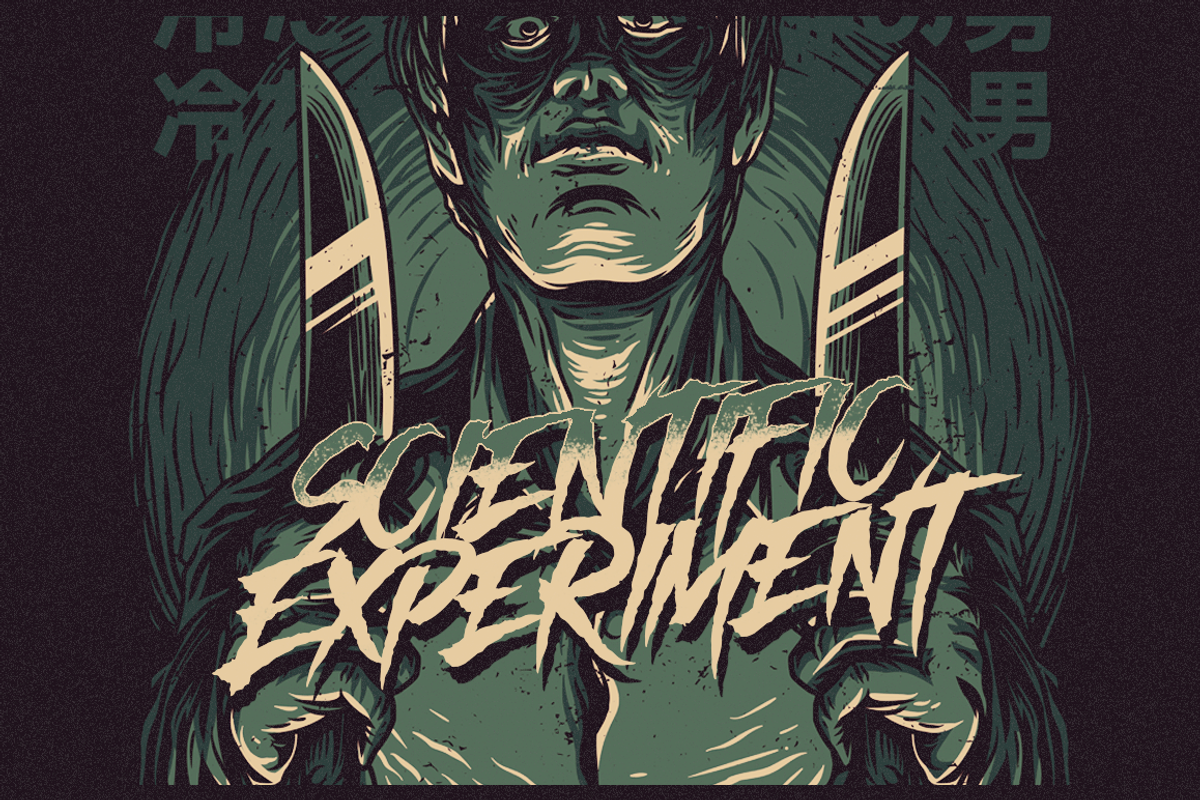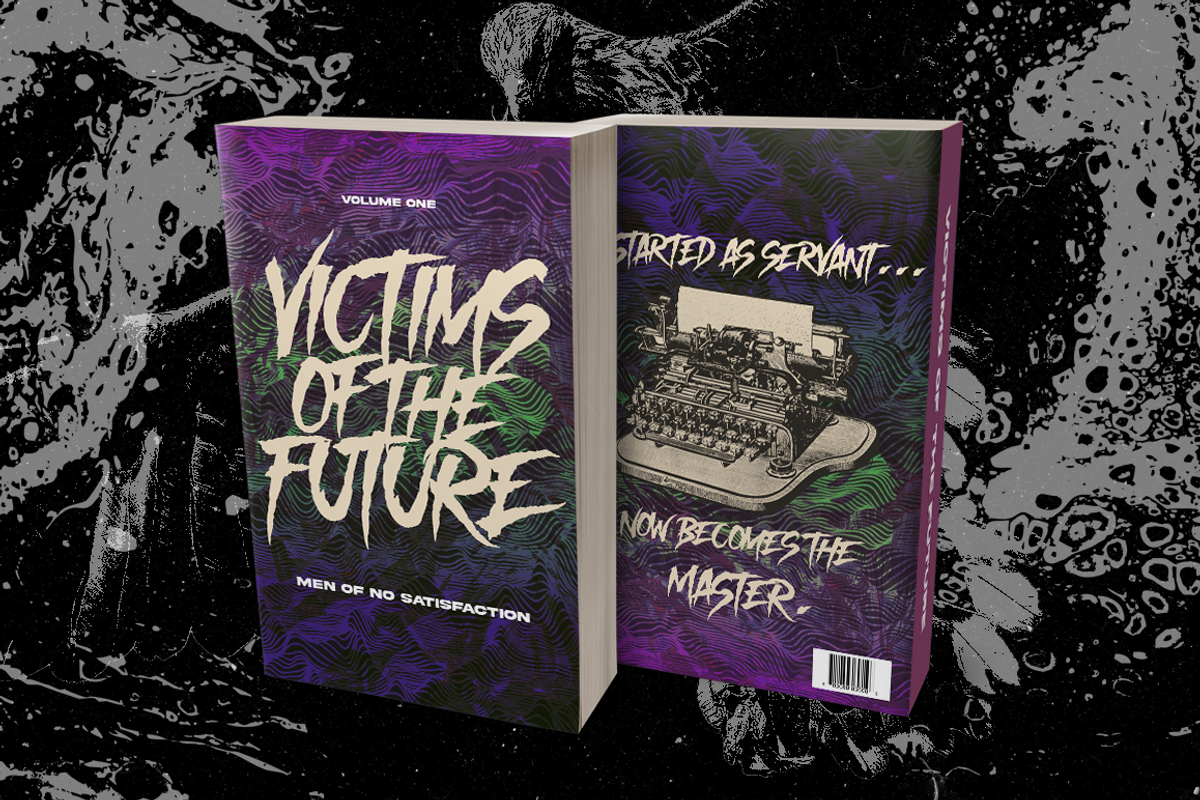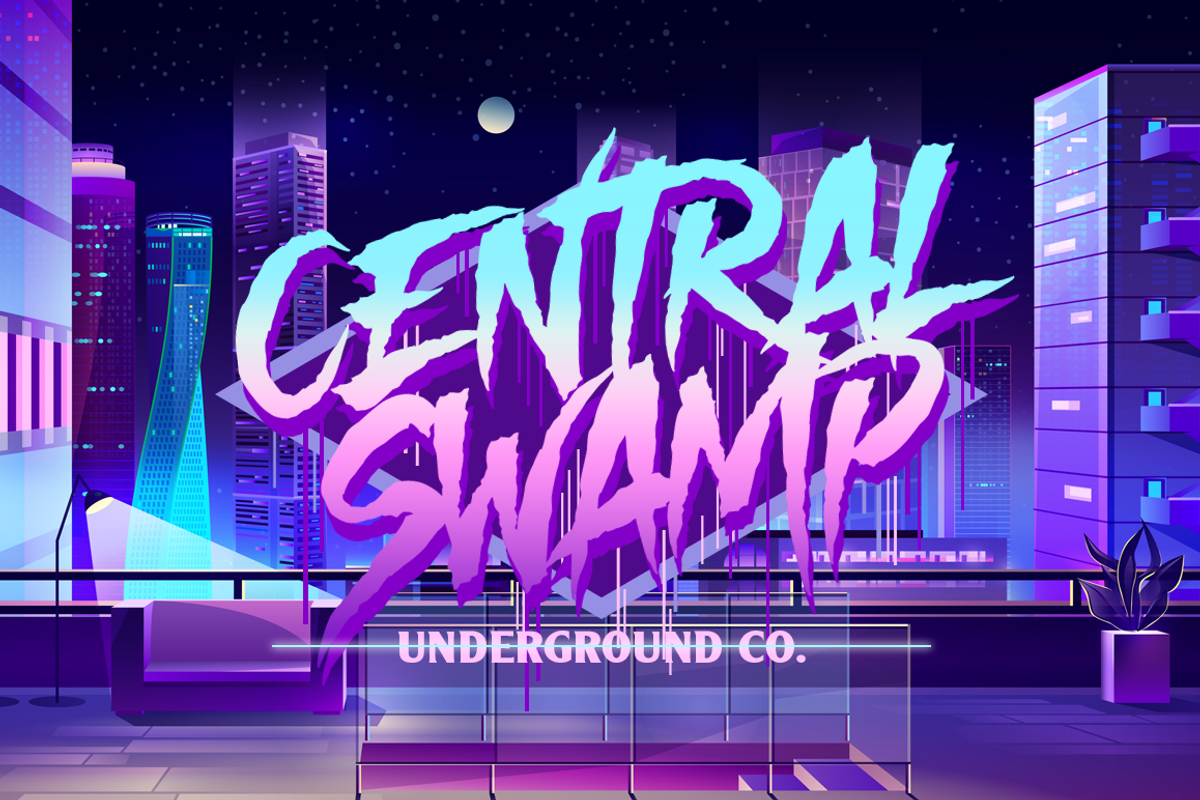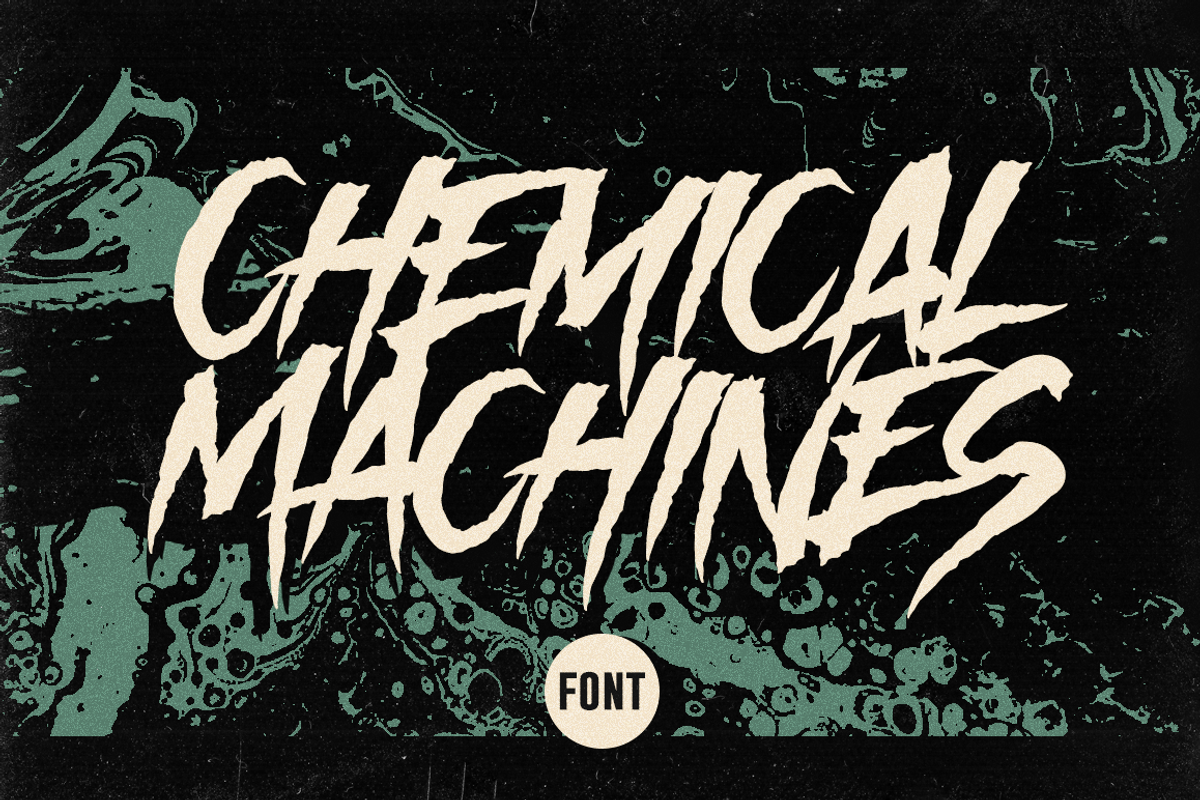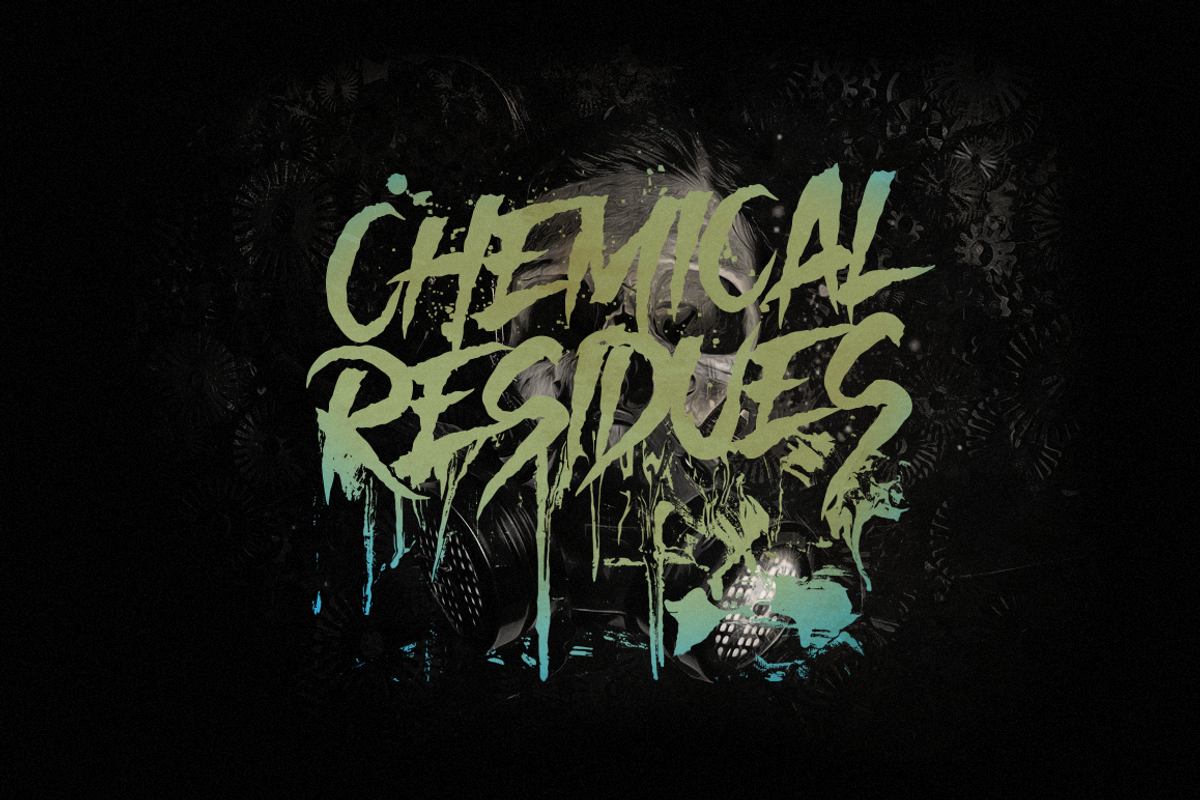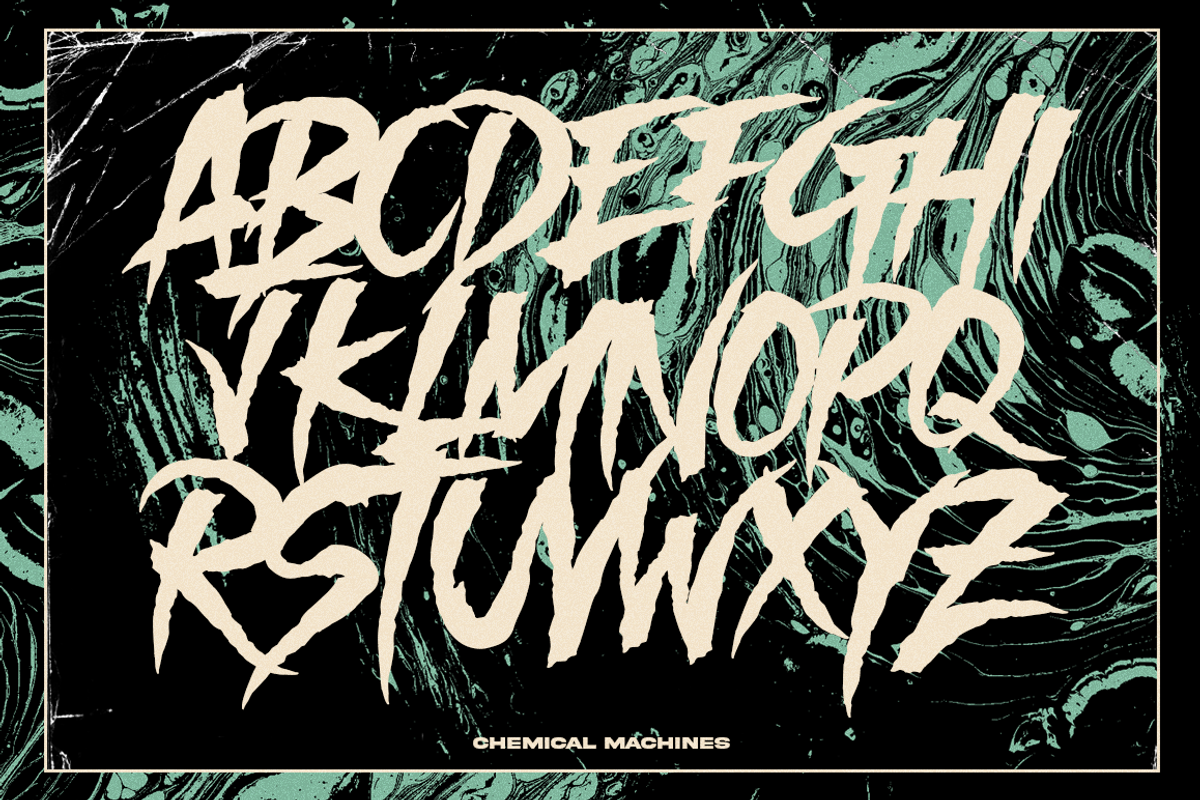
Chemical Machines - Horror Font
In pursuit of ultimate horror and retro typeface, we provide you Chemical Machines! Never limit yourself and go beyond the unexplored. You can use this font for a monochromatic illustrations or intermix it with modern touches of gradient text effects. Maybe, a bit of surrealism and pop-art would be great? We are all free to be creative! But one thing that pops up in mind, who are the Chemical Machines?